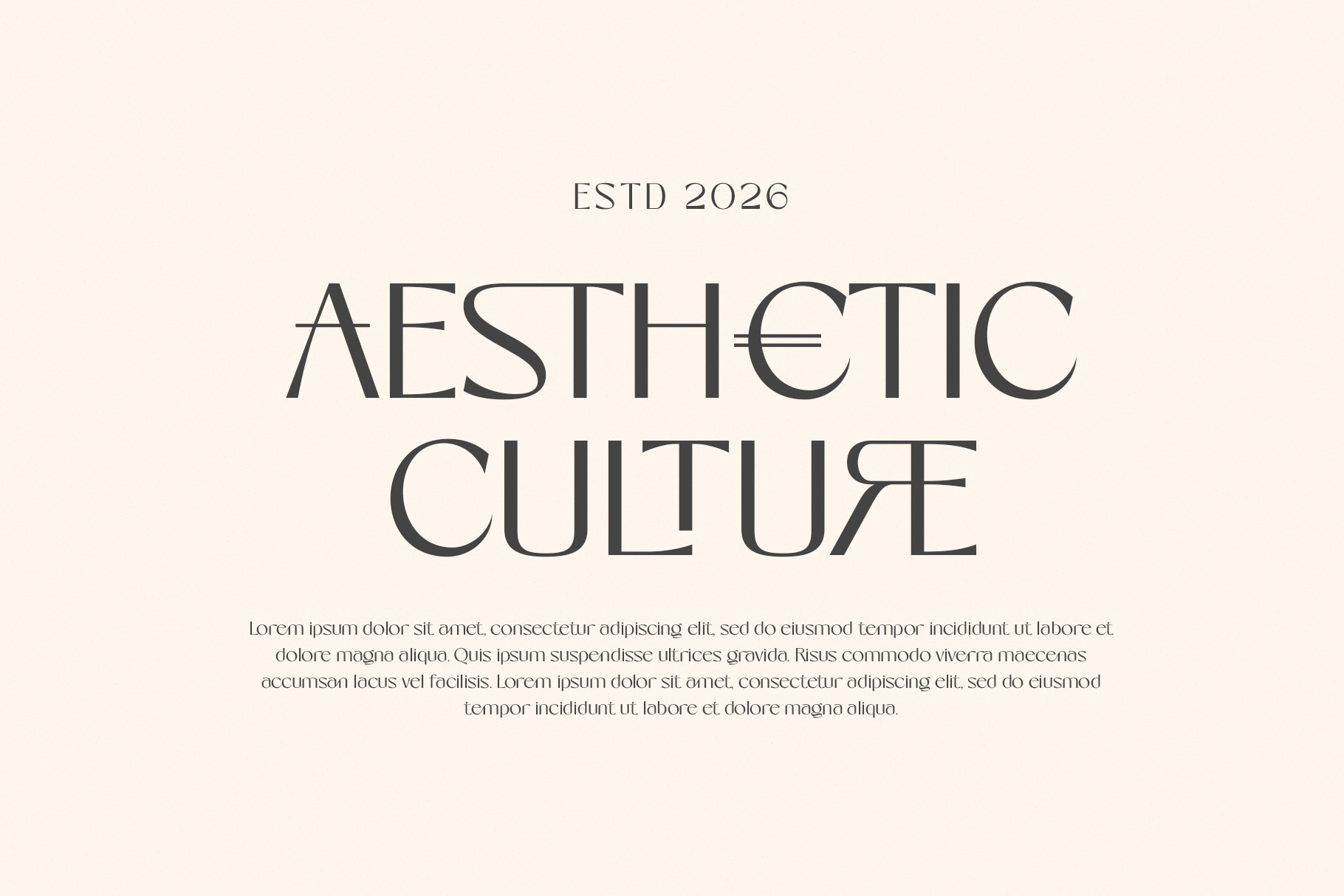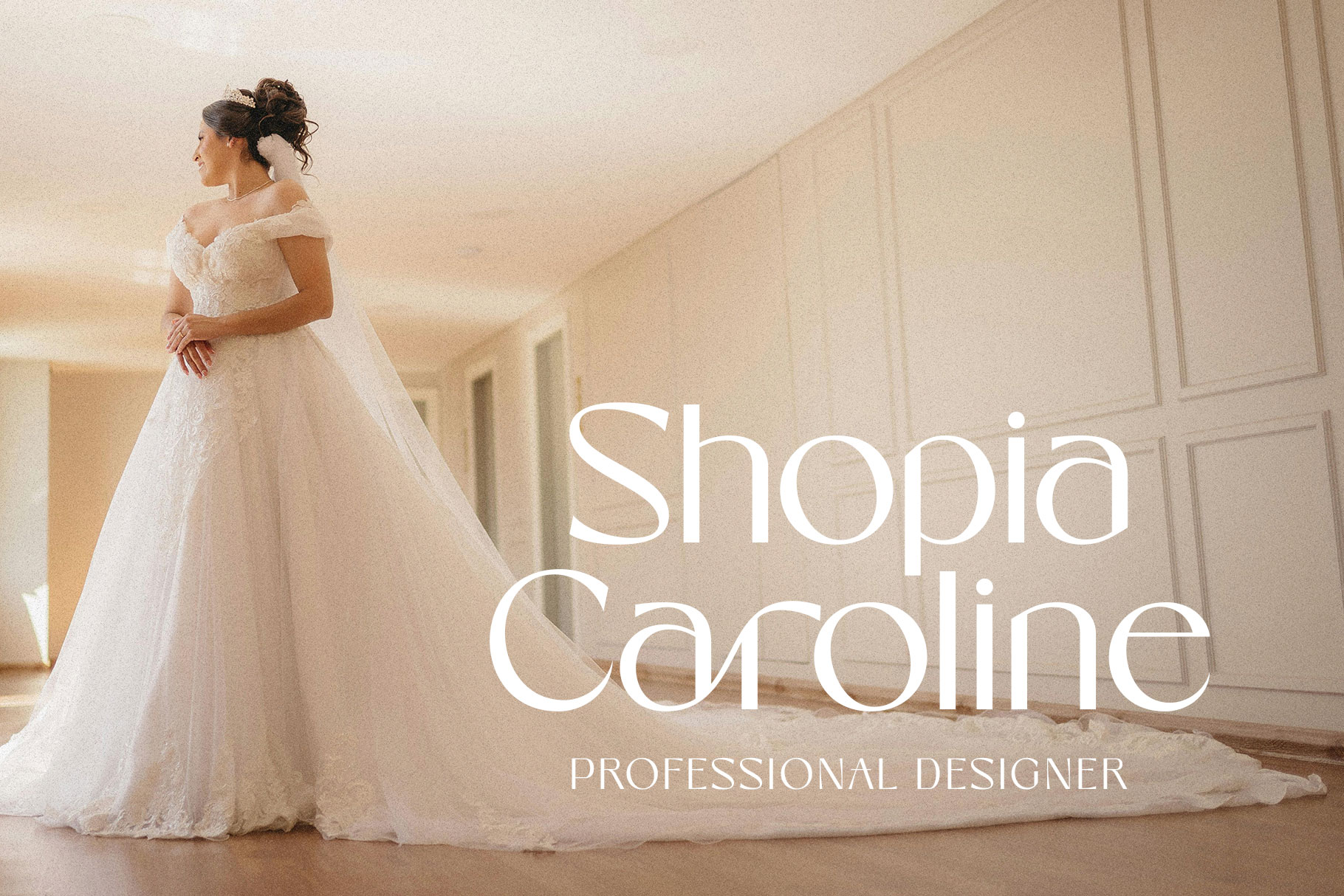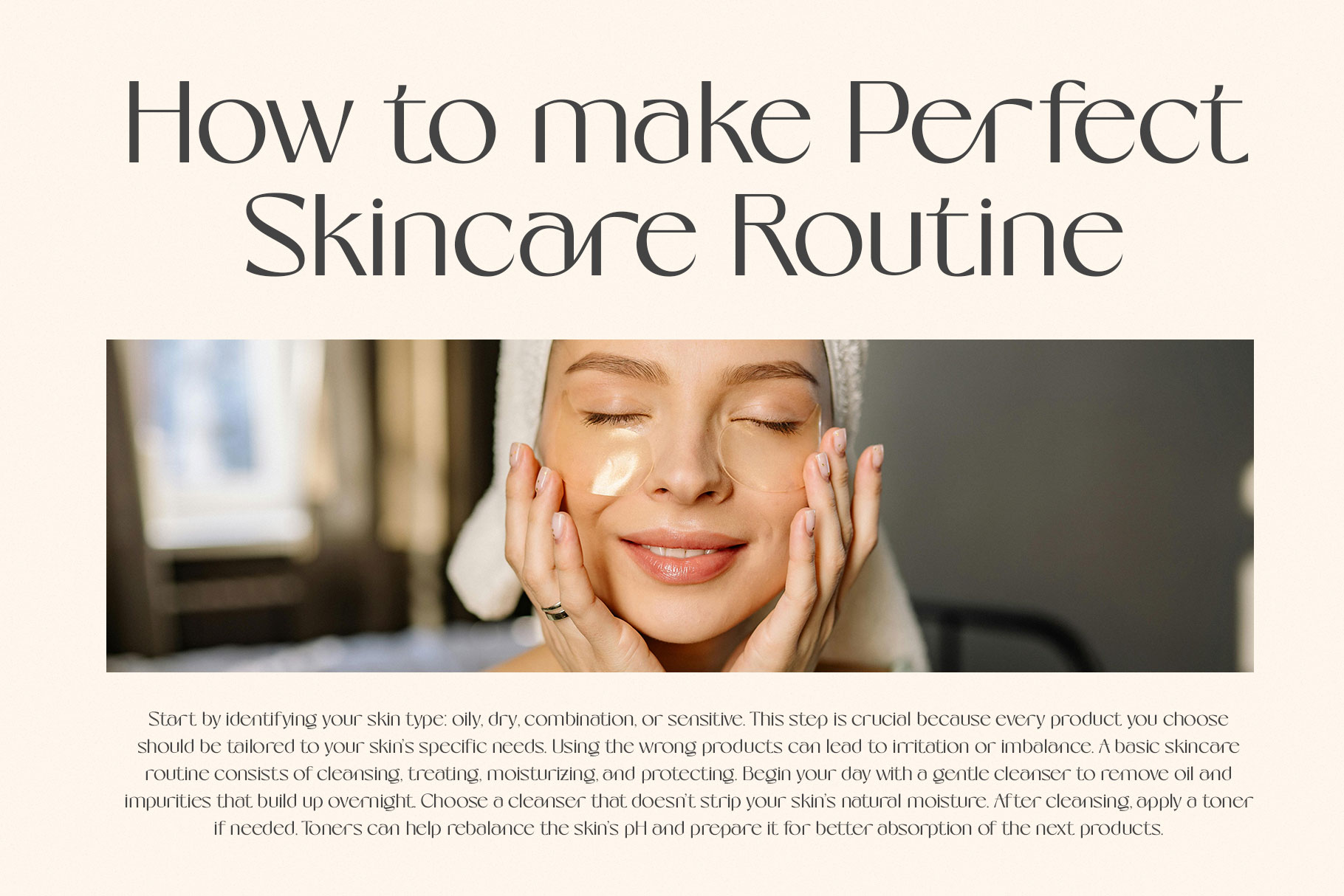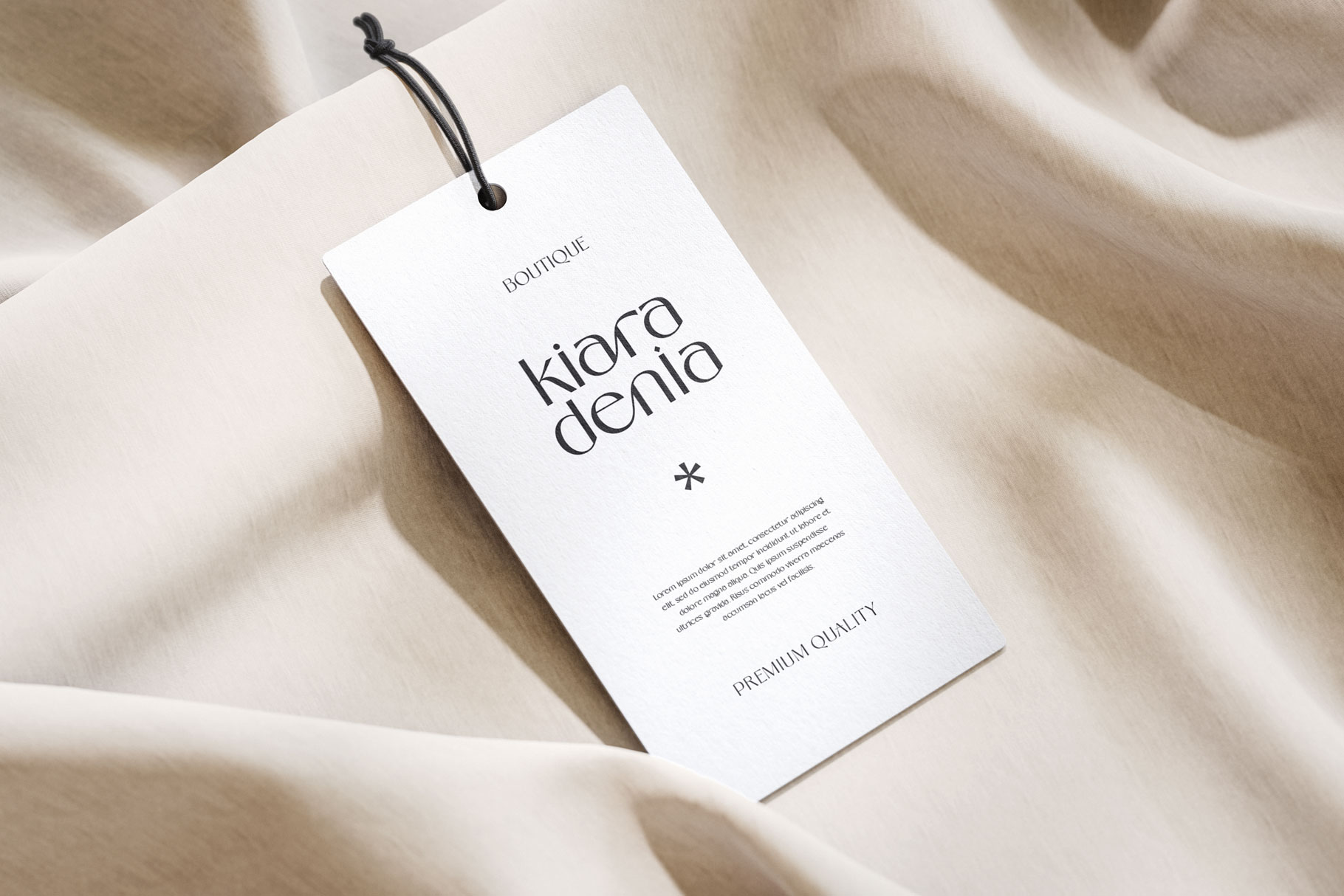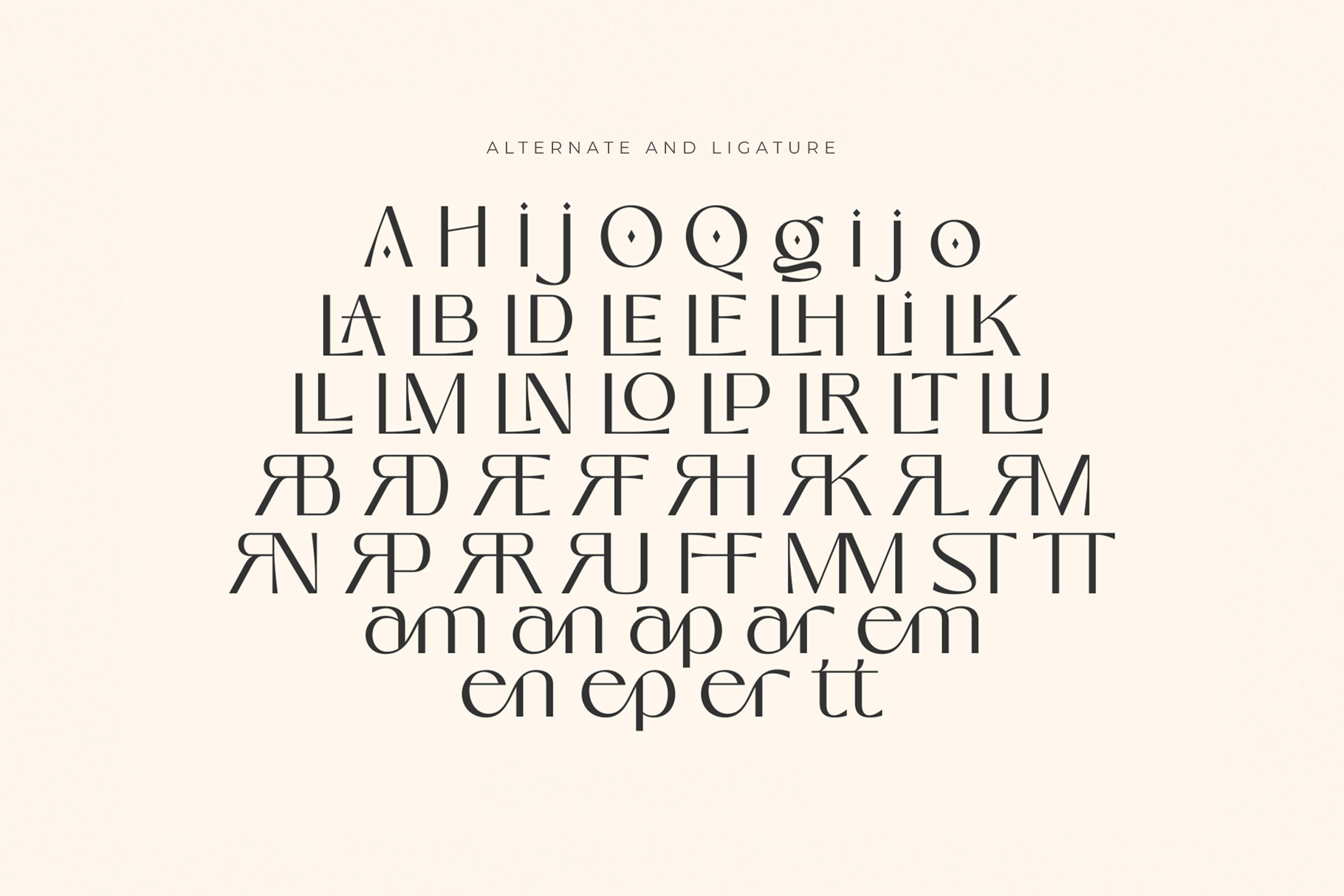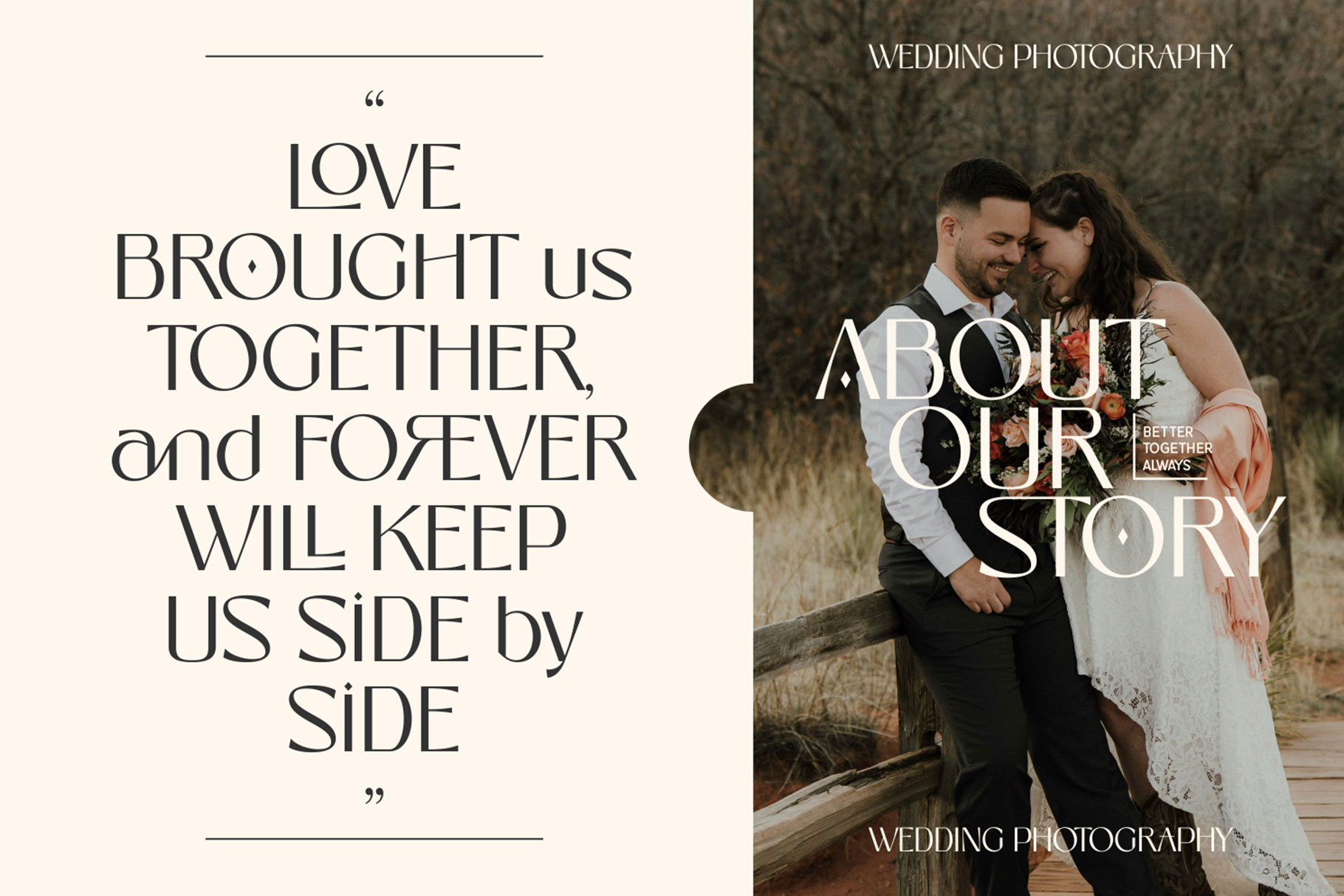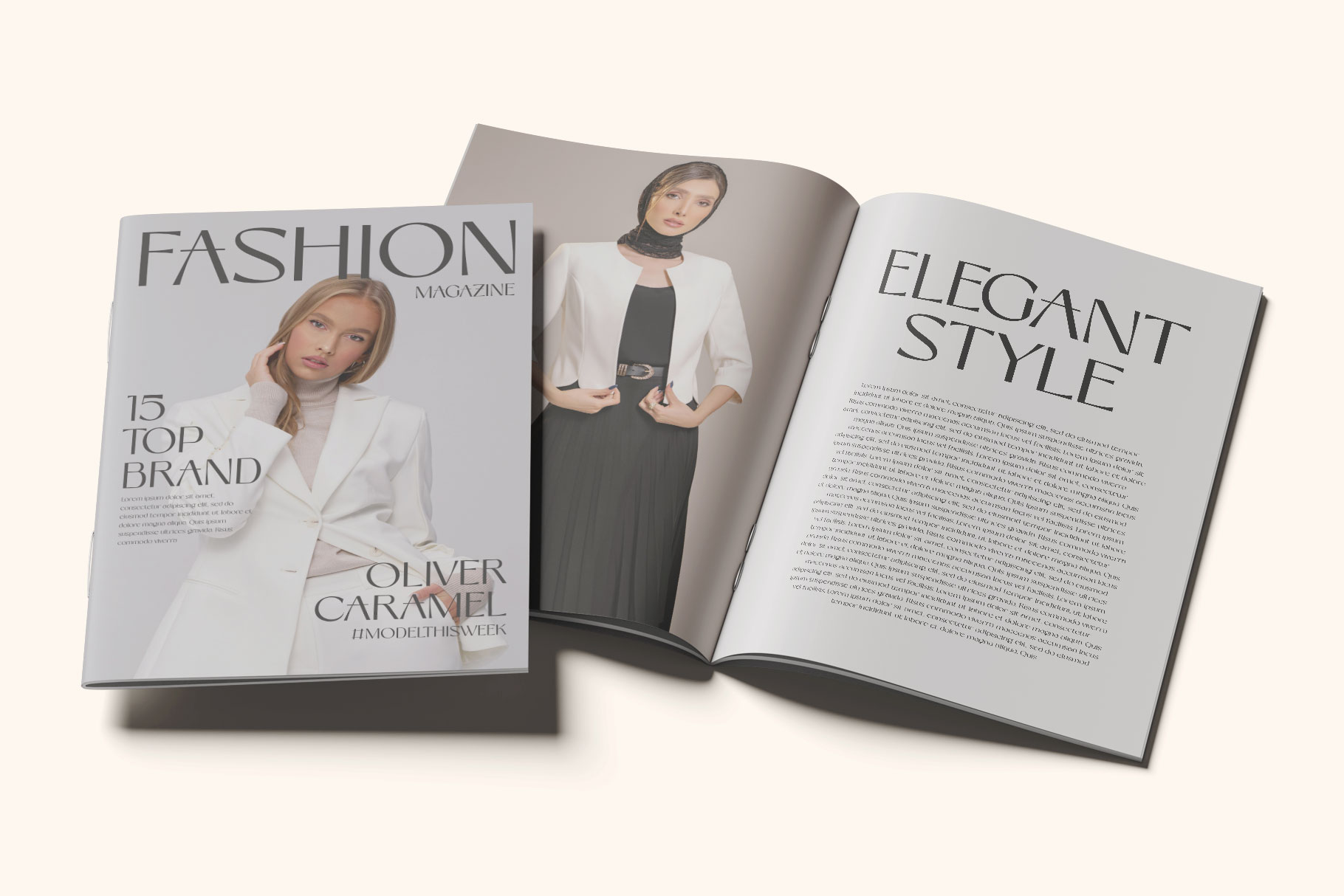
Norelisa
Norelisa is foundation font of modern visual communication, offering clarity, precision, and versatility across a wide range of design applications. Norelisa  is sans font with modern and refines typeface with clean lines, smooth curves and well proportioned letterforms, norelisa delivers a contemporary look that feels both professional and approachable.
Norelisa is a perfectly choice for any creative endeavor, creating, modern, lifestyle design such as logotype, title, cover, branding, invitations, wedding designs, display and magazine, social media posts, advertisements, printed quotes, product packaging, corporate brand, product designs, labels, photography, watermarks, special events and any other project with modern touch.